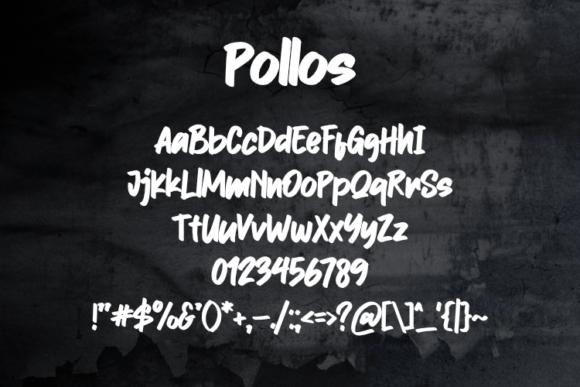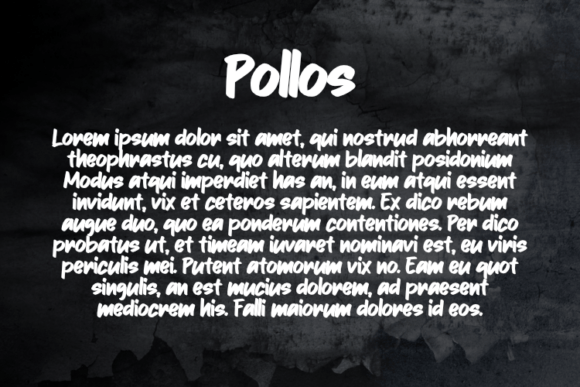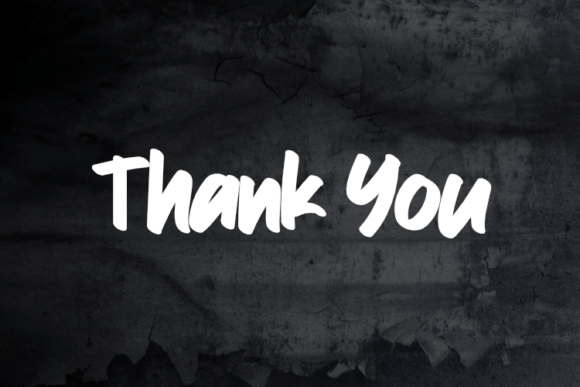
Introduction to Pollos Font
As you sit in front of your computer screen, staring at a blank canvas, waiting for inspiration to strike – that’s when it happens. The spark of creativity ignites, and your imagination runs wild with endless possibilities. But what if you had a secret weapon to elevate your designs and make them truly stand out? Enter Pollos Font, a game-changing design resource that’s about to revolutionize your creative project.
Pollos Font is more than just a font – it’s a key to unlocking your full design potential. With its unique aesthetic appeal and versatility, it’s the perfect choice for apparel designers, graphic artists, and anyone looking to take their designs to the next level. Whether you’re working on a free download or a high-end commercial project, Pollos Font is the ideal companion to help you achieve your creative vision.
Pollos Font
- High-quality font with a unique and creative design, perfect for any project.
- Perfect for use in creative projects, such as graphic design, digital art, and typography-based designs.
Honest Review: Pollos Font
As a designer, I’m always on the lookout for unique and high-quality fonts to add some personality to my creative projects. Recently, I stumbled upon the Pollos Font, and I’m excited to share my honest review with you.
What works well: ✨ The Pollos Font is a beautiful, hand-drawn font that’s perfect for adding a touch of whimsy to your designs. It’s available for free download, making it an excellent design resource for anyone looking to elevate their creative project without breaking the bank. The font also features a transparent background, which makes it easy to use in a variety of design contexts.
- Unique and hand-drawn design
Limitations: ⚠️ While the Pollos Font is a great addition to any design library, it’s not without its limitations. The font is only available in a limited number of styles, which may not be ideal for designers who need a wide range of font options for their project.
Overall, I’m really impressed with the Pollos Font. It’s a high-quality design resource that’s perfect for adding a touch of personality to your creative projects. While it may have some limitations, I think it’s well worth downloading and experimenting with in your next design project.
Common Use Cases for Pollos Font
Pollos Font is perfect for creating logos, business cards, and other corporate designs. It can also be used in creative projects such as infographics, brochures, and posters. With its elegant and sophisticated style, Pollos Font is a great choice for any design project that requires a touch of class and sophistication.